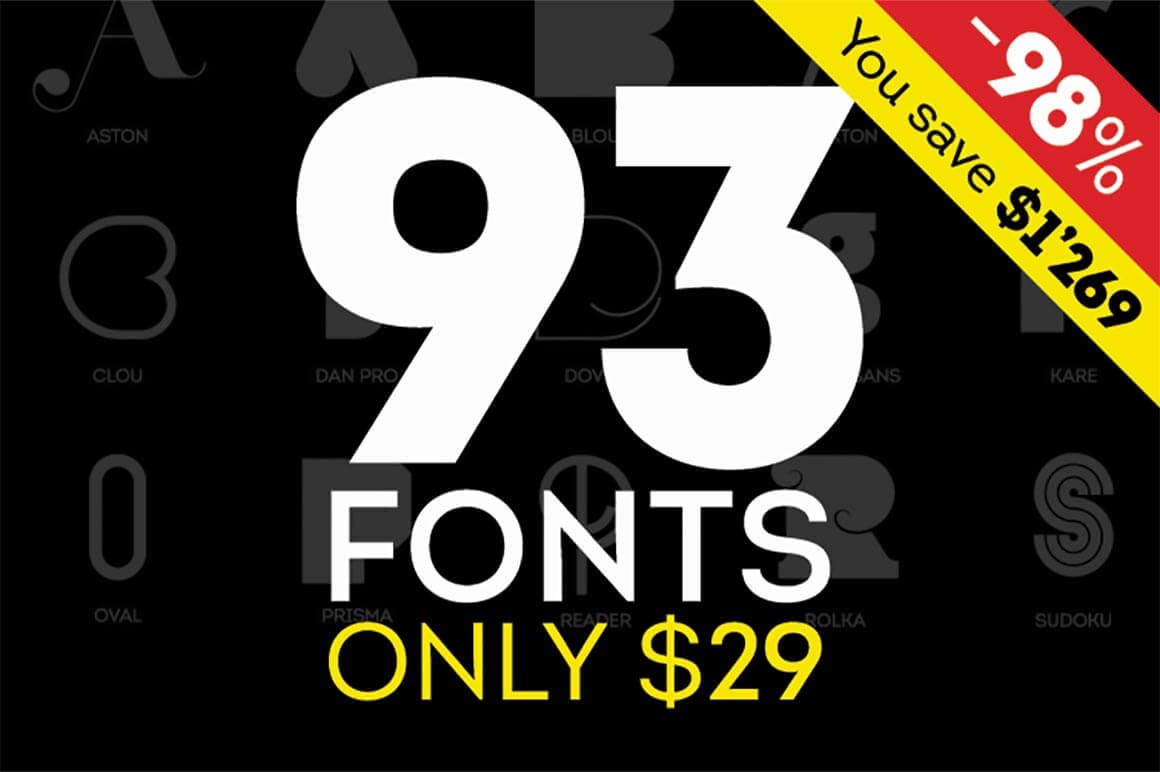
If you’re looking for a great set of fonts, this Fontfabric Font Bundle is sure to put a big fat smile on your face! That’s because with just 1 deal, you’ll get yourself more than 90 different fonts! You’ll get yourself some of the greatest Sans and Art fonts around. These 18 unique font families are delivered to you all in an .OTF file format. What’s even more amazing is that thanks to this Mighty Deal, you can save more than 95% off the regular price!
- 90+ Fonts
If variety is your spice of life, then this Mighty Deal’s one titanic typeface of a meal for you! You’ll get a whopping 93 fonts (18 different families) in 1 deal! - 18 Unique Font Families
This bundle includes 18 unique font families, each with a variety of different weights and styles. You’ll find everything from the dual style Prisma font to the ginormous Gabriel Sans Font Family. - Huge Diversity in Style
With 18 different families, you just know you’re going to get a wide range of typeface styles. This comprehensive design pack is full of creative and multifunctional fonts. - Personal or Business Use
The desktop versions of these OpenType fonts offer contextual alternates, adding to their already diverse nature.
- Gabriel Sans Family (Thin, Thin Italic, Light, Light Italic, Normal, Normal Italic, Medium, Medium Italic, Bold, Bold Italic, Black, Black Italic, Condensed Thin, Condensed Thin Italic, Condensed Light, Condensed Light Italic, Condensed Normal, Condensed Normal Italic, Condensed Medium, Condensed Medium Italic, Condensed Bold, Condensed Bold Italic, Condensed Black, and Condensed Black Italic)
- Zag Family (Thin, Light, Normal, Regular, Bold, Deco Thin, and Drops Thin)
- Reader Family (Light and Bold)
- Braxton (Light, Book, Normal, Bold, and Black)
- Colo Pro (Black Inline and Black)
- Aston Family (Light, Light Italic, Book, Book Italic, Normal, and Normal Italic)
- Dan Pro (Regular and Outline)
- Avatar
- Sudoku (Light. Medium, Original, Deco and Black)
- Clou (Light and Black)
- Oval (Thin, Light, Book, Regular, Medium, Bold, Heavy, Single Light, Single, Double Deco, and Black)
- Solomon Family (Thin, Thin Deco, Light, Light Deco, Book, Book Deco, Normal, Normal Deco, Bold, Bold Deco, Black, and Black Deco)
- Kare (Original, Light, Shadow, and Gradient)
- Prisma (Line and Black)
- Dox (Original and Line)
- Blou
- Dovde (Thin and Black)
- Rolka (Light and Ultra)